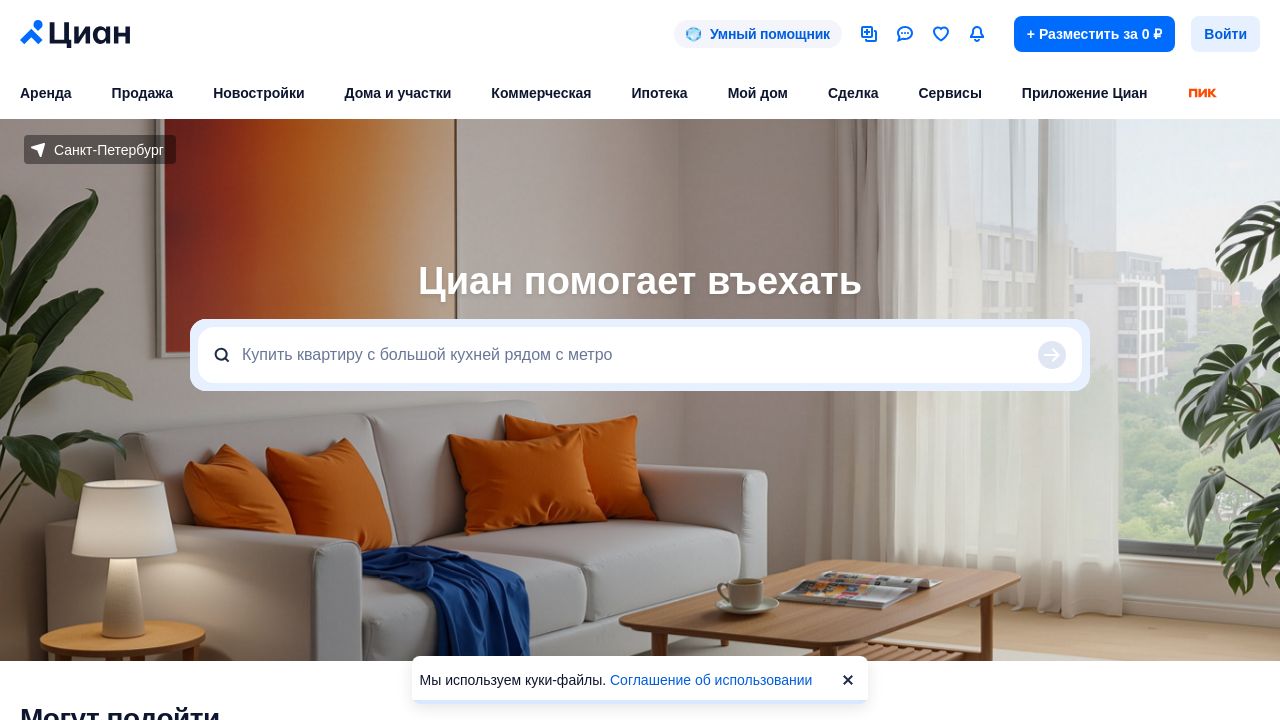
What fonts does Spb use?
At spb.cian.ru, a platform dedicated to real estate, the typography reflects clarity and accessibility. The use of Arial and helvetica-neue in a 400 weight provides a straightforward reading experience, while YS Text at 300 weight adds a subtle nuance, catering to a diverse audience seeking information. This thoughtful font selection enhances user engagement, ensuring that essential content stands out in a competitive market.
Frequently asked questions about Spb.cian.ru's fonts
What fonts are used on spb.cian.ru?
spb.cian.ru primarily uses Arial, helvetica-neue, and YS Text. Arial and helvetica-neue are in a weight of 400, while YS Text features a lighter 300 weight.
How does YS Text compare to Arial?
YS Text, used at a weight of 300, offers a softer appearance compared to Arial's straightforward design at 400. This makes YS Text suitable for a more friendly tone.
What styles and weights are available for these fonts?
spb.cian.ru primarily utilizes Arial and helvetica-neue in a weight of 400. YS Text is available in a lighter weight of 300, providing a varied typographic palette.
Why does spb.cian.ru use these specific fonts?
The choice of Arial, helvetica-neue, and YS Text ensures readability and a professional aesthetic, which is crucial for users navigating real estate listings.